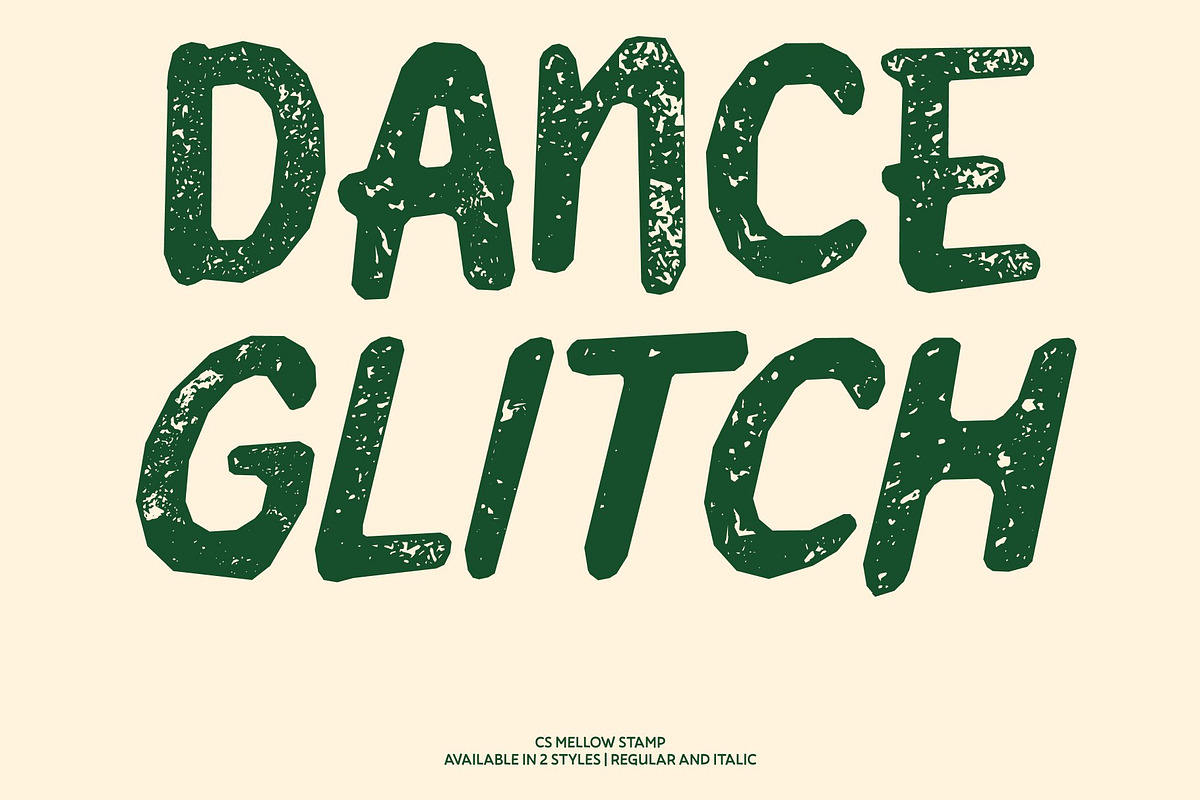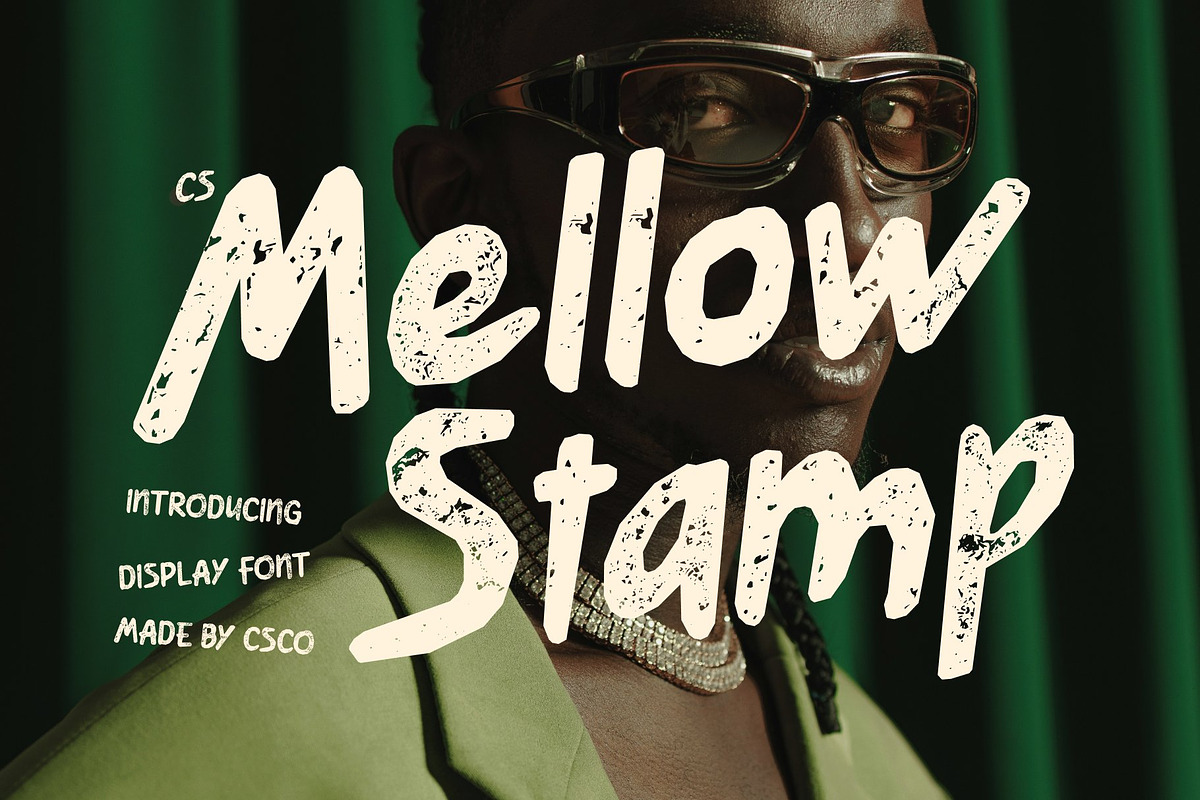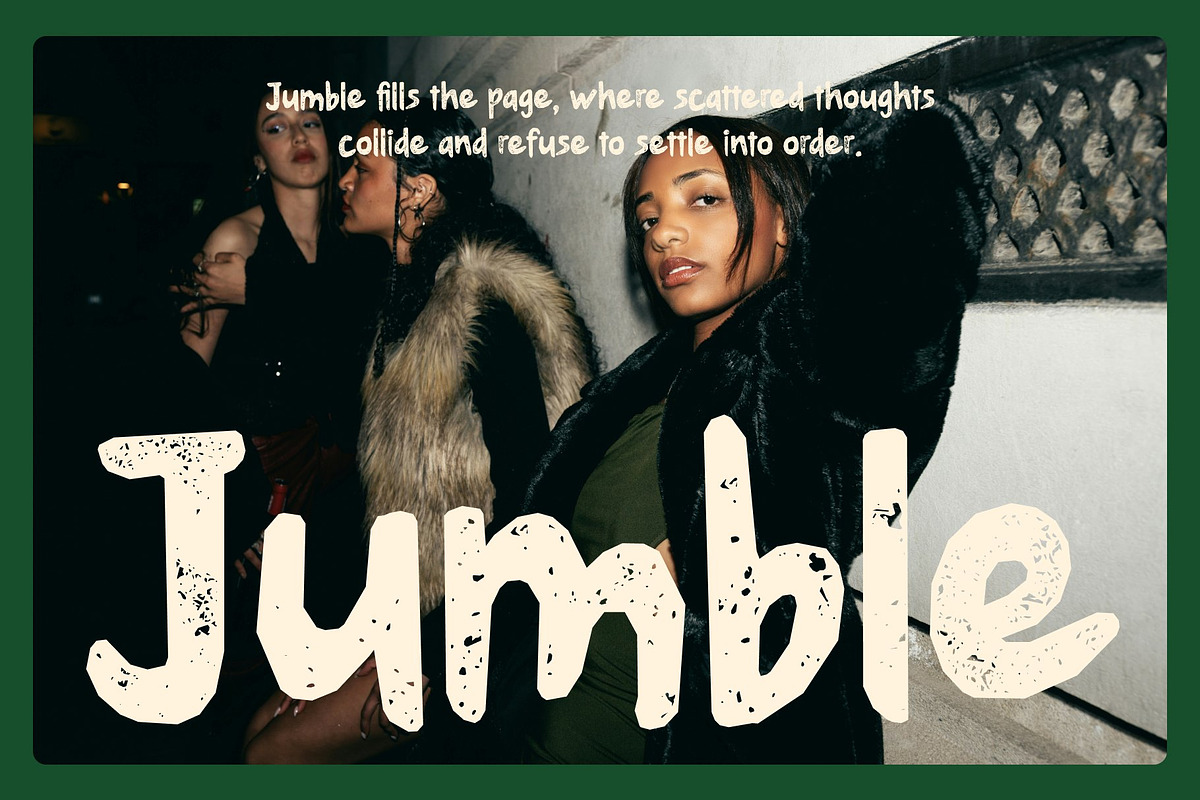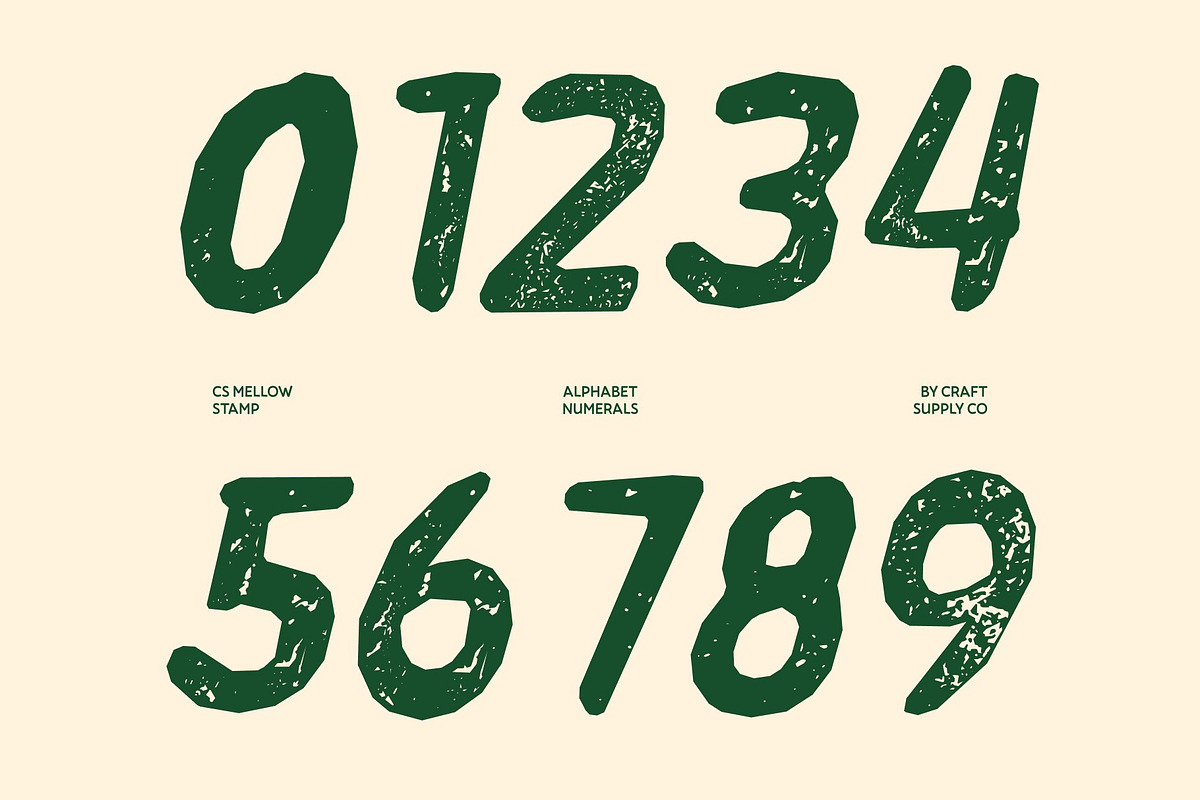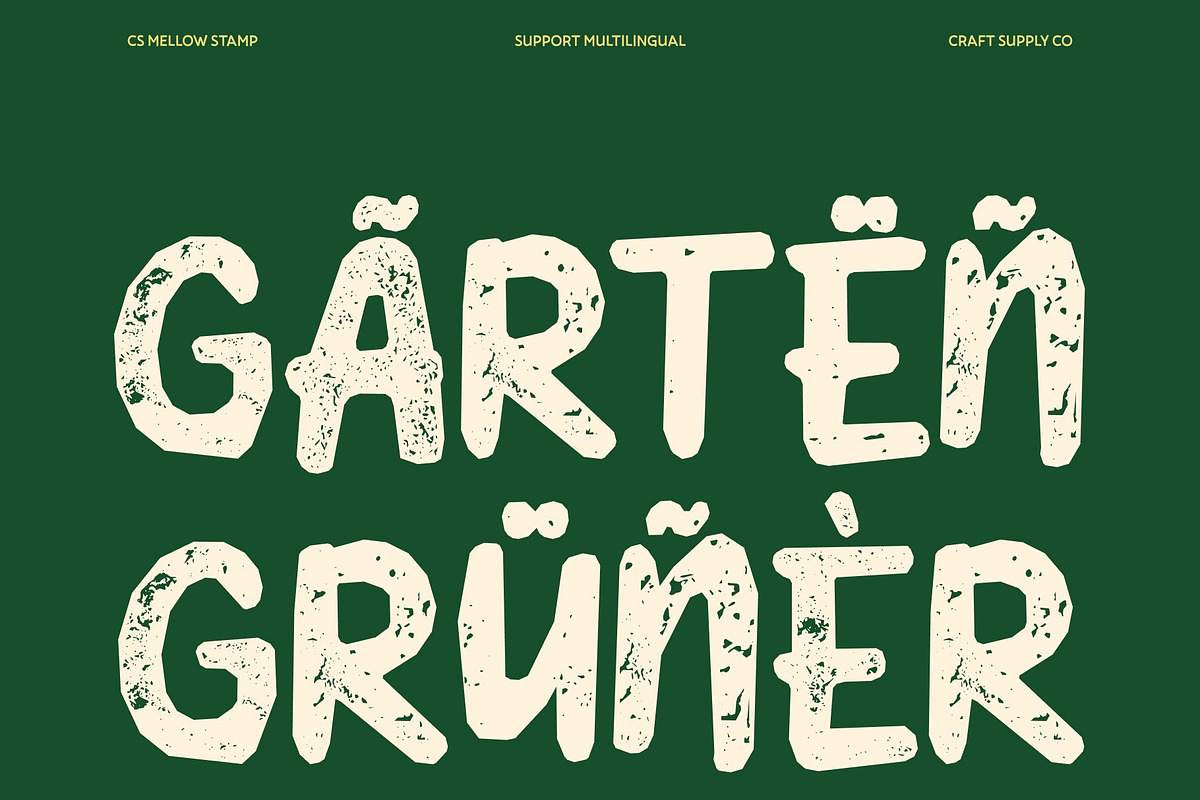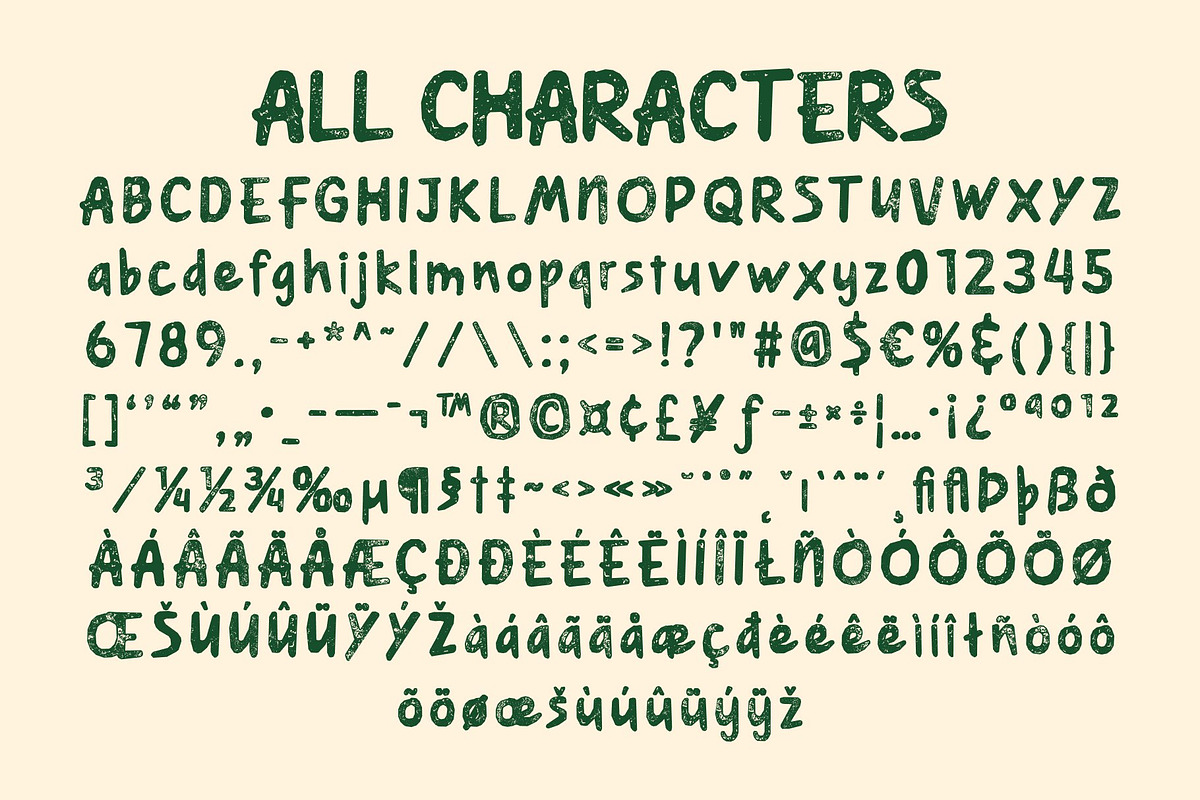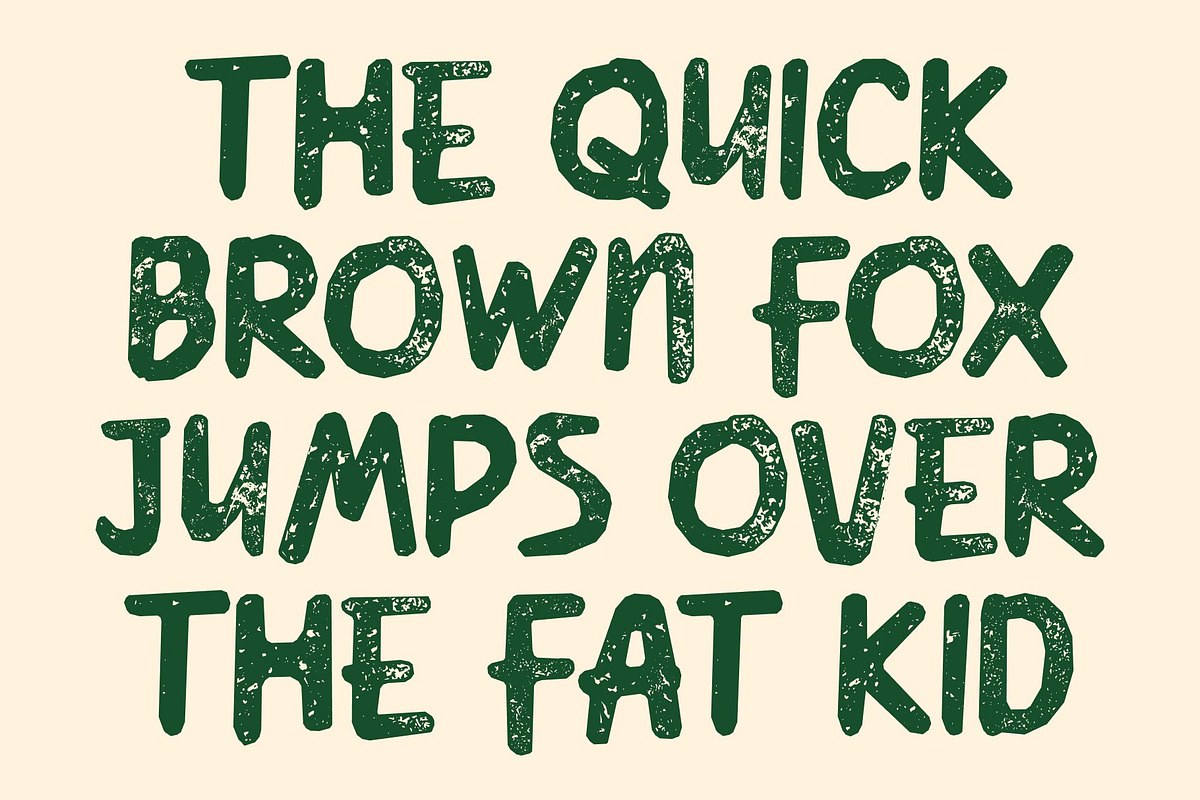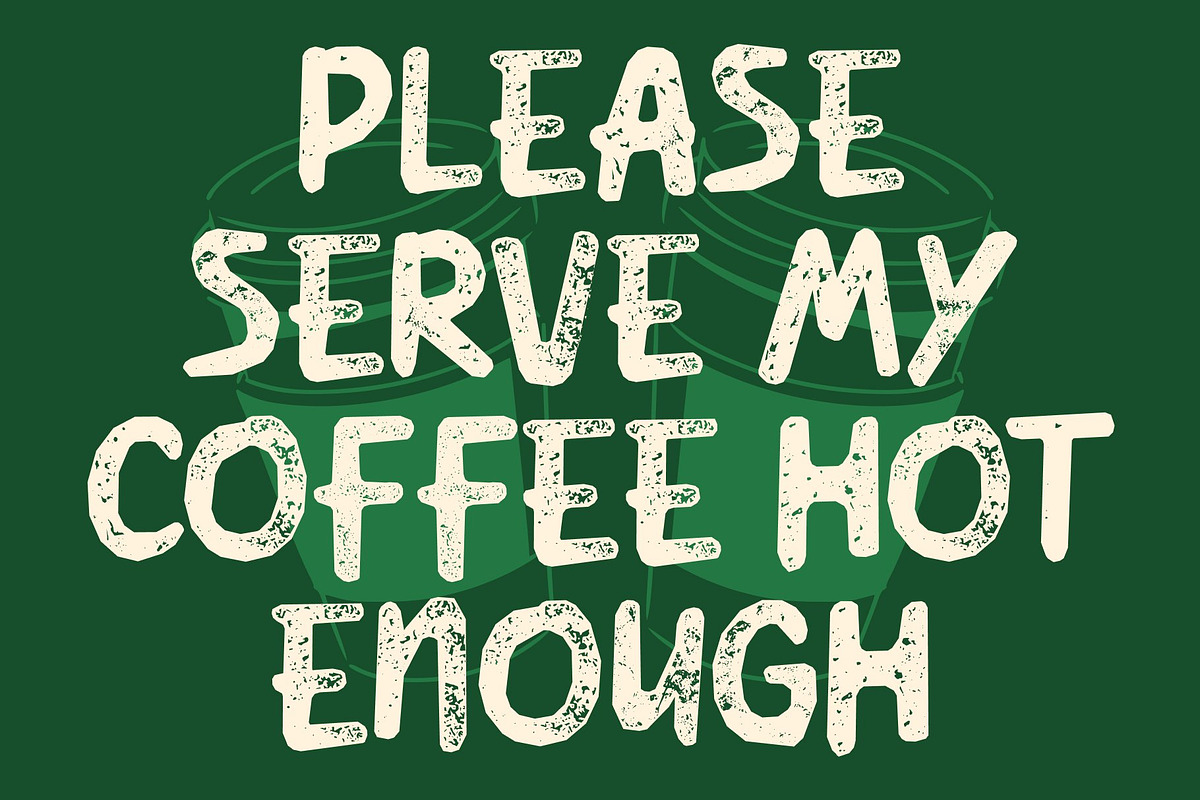
CS Mellow Stamp
CS Mellow Stamp – Playful Handwritten Font with Vintage Texture
Fun Handwritten Style with a Stamped Personality This is a cheerful display font that blends modern handwritten charm with a nostalgic stamped finish. Its lively letterforms feel spontaneous and friendly, while the textured stamp effect introduces a subtle vintage character. This combination transforms the clean handwritten style into something more artistic, tactile, and full of personality.
Expressive Strokes with Organic Texture The natural flow of each letter is enhanced by a gently distressed stamp texture, creating an imperfect inked appearance that feels authentic and handcrafted. This textured finish adds warmth and visual depth, giving the font a playful yet slightly retro personality that stands out beautifully in creative layouts.
Modern Clarity Meets Retro Charm This font maintains the readability and smooth rhythm of a modern handwritten font while introducing a nostalgic edge through its stamped aesthetic. The result is a unique balance between contemporary friendliness and vintage flair, perfect for designs that want to feel both fresh and timeless.
Perfect for Joyful Branding and Creative Projects Ideal for posters, packaging, playful branding, social media graphics, and lifestyle content, this font adds positivity and charm to every composition. Its fun personality and artistic texture make it a perfect choice for projects that aim to feel energetic, approachable, and visually memorable.
CS Mellow Stamp Regular
CS Mellow Stamp Italic